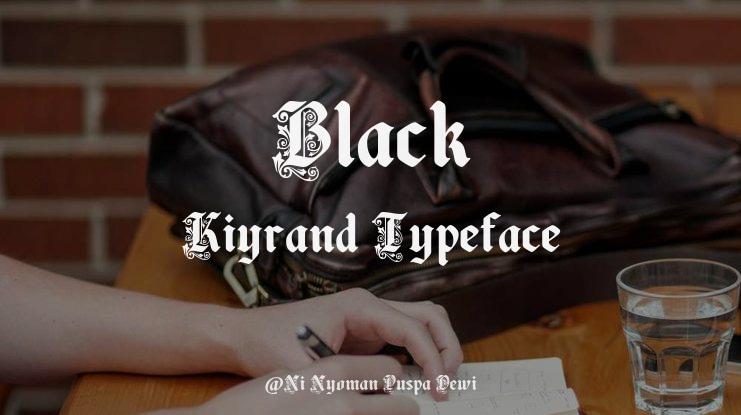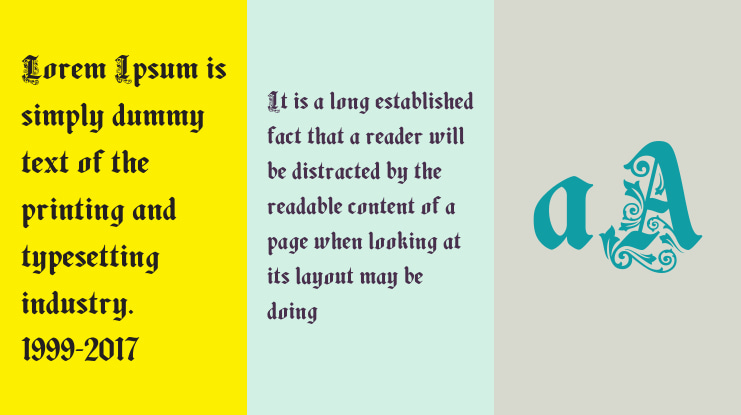
Black Kiyrand Font
Black Kiyrand Typeface
A Masterpiece of Ornamental Blackletter Elegance
Black Kiyrand Typeface is a richly detailed blackletter font that captures the soul of medieval calligraphy with a bold modern presence. Inspired by Gothic manuscript traditions and adorned with intricate ornamental flourishes, Black Kiyrand is the perfect harmony of historical elegance and contemporary craft.